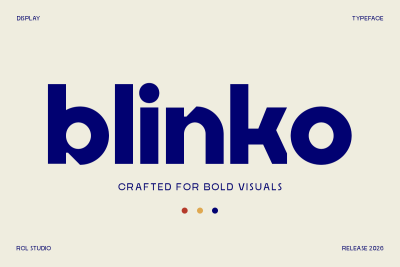
Blinko – A Bold Rounded Display Font
Blinko – A Bold Rounded Display delivers a distinctive typographic voice that adapts effortlessly across digital and print applications.